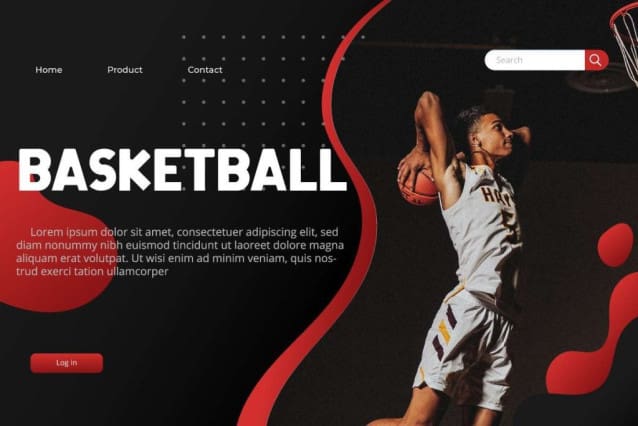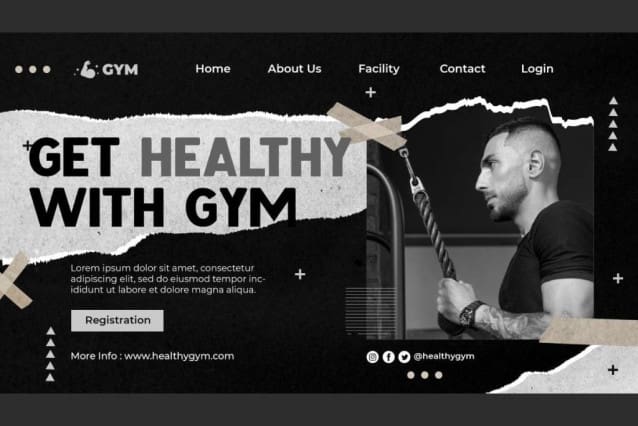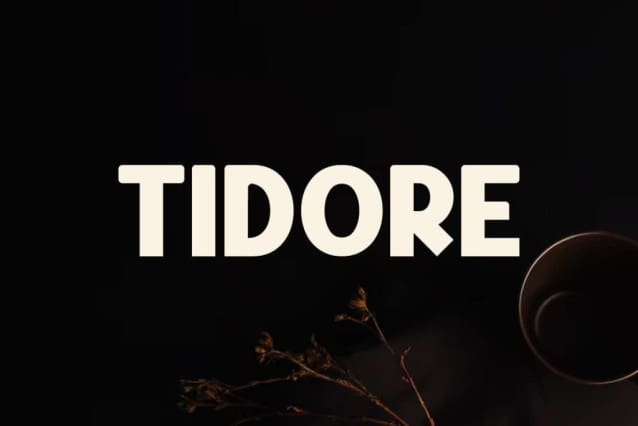
Tidore Font
Tidore Font is a cool modern sans serif display font that feels sophisticated yet eye catchy. It’s inspired by modern sans-serif typefaces. This will come in handy on any of your designs, such as book covers or magazine, branding, labels, product screen print, business signs, stationery, stickers, website headers, etc. The minimal design for font styles will meet diverse needs for all types of writing in graphic design work.
Tidore Font includes a complete set of ALL CAPS for Basic Uppercase and Lowercase Characters, Numbers, Punctuation Marks and Symbols. A typeface with a bold appearance is able to give a strength and masculine impression. It would be perfect for whatever the industry, such as accessories and merchandise, bodybuilding gym, cafe, clothing brand, content creator, fashion, graphic design, home products, photography, printing, publishing, sport, and much more.